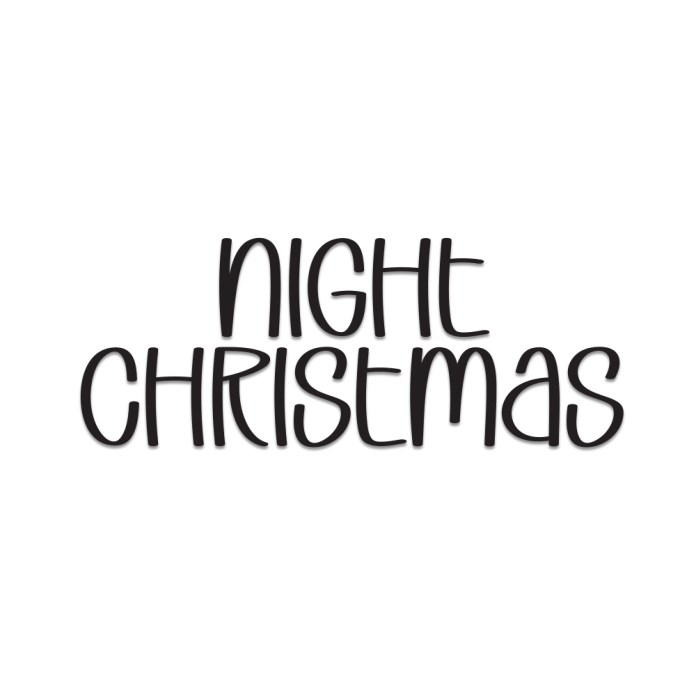
Night Christmas is a bold and charming display font designed to bring the cozy magic of winter nights into your creative projects. Its playful yet elegant letterforms are perfect for capturing the joyful spirit of the holiday season.
Festive display style with a warm and magical feel
Ideal for Christmas cards, posters, and holiday event banners
Stylish uppercase and lowercase letters with decorative touches
Perfect for packaging, gift tags, and seasonal branding
Bring your designs to life with Night Christmas, a display font that sparkles with holiday cheer.